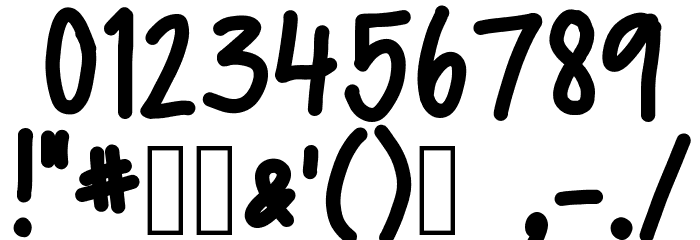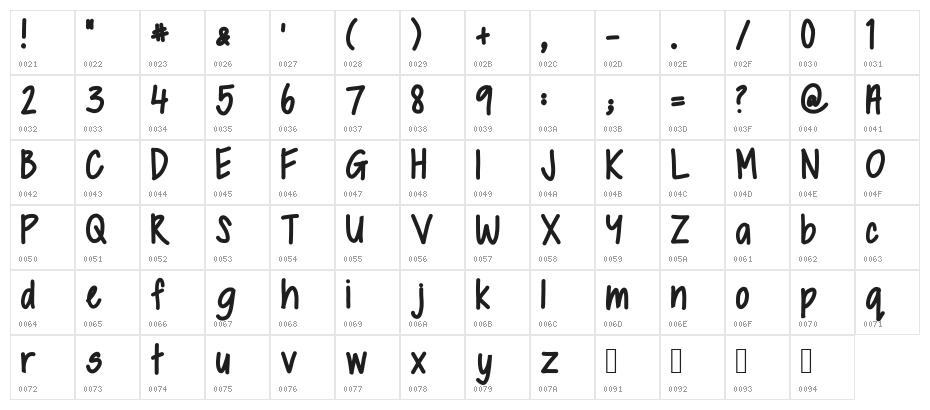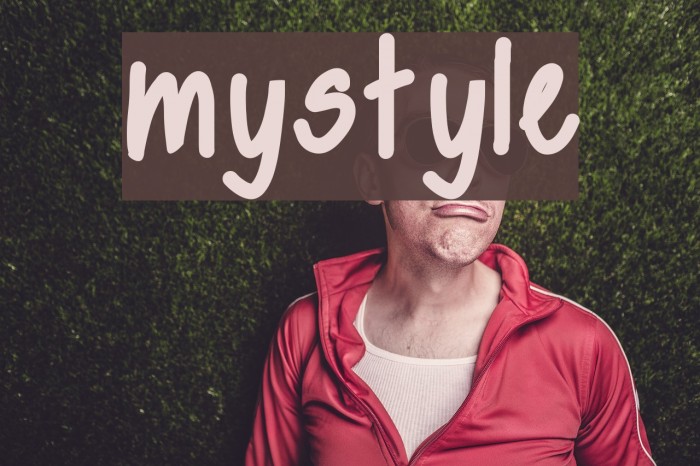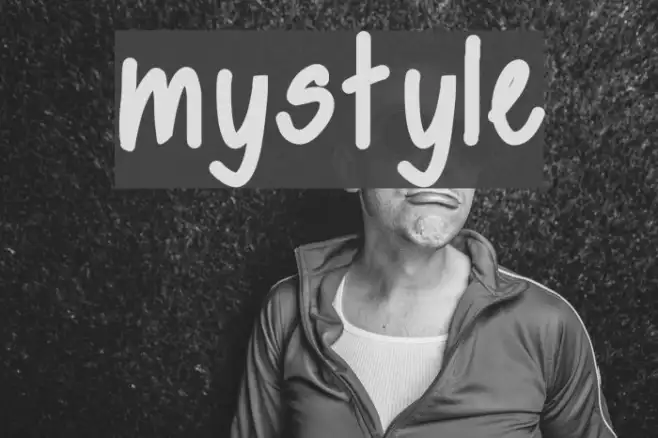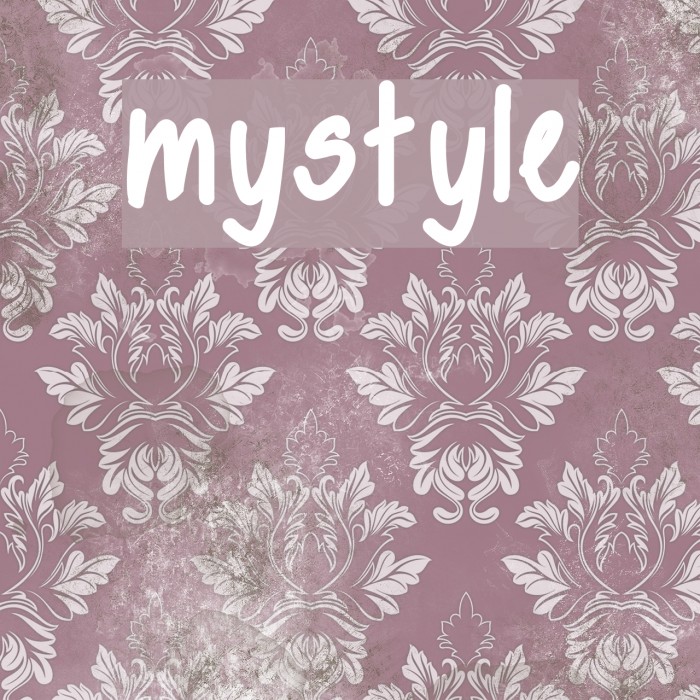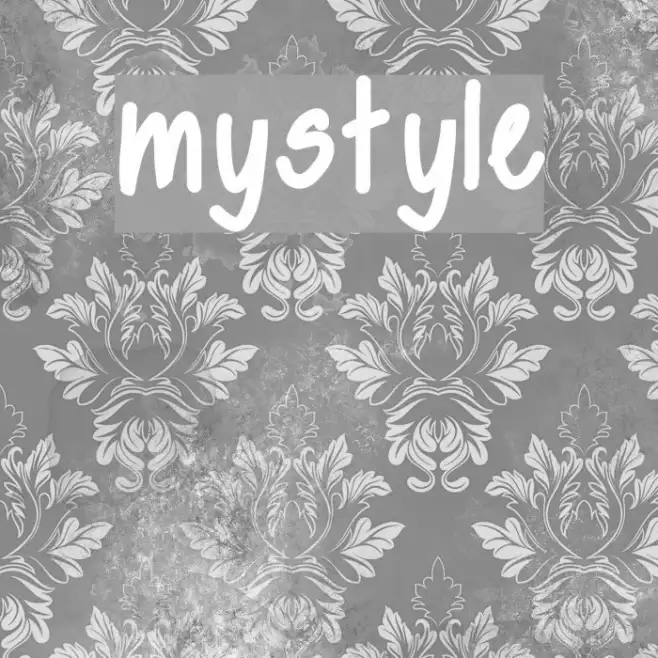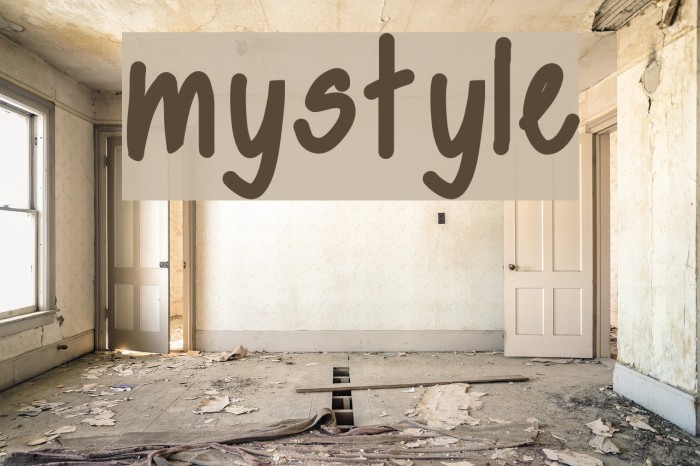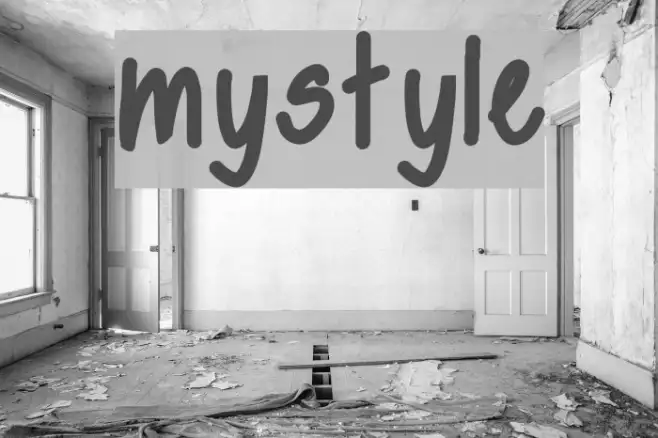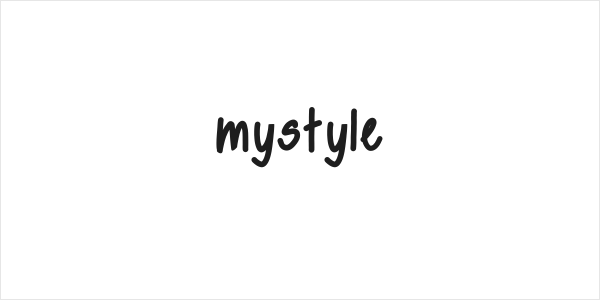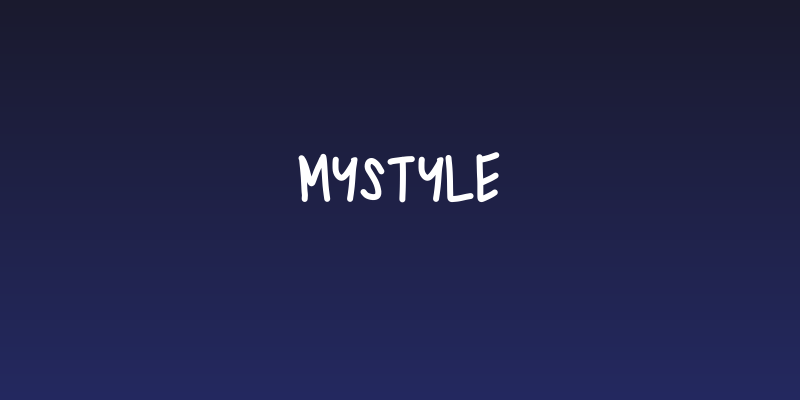
mystyle Font
mystyle Description
This font features a playful and casual handwritten style, characterized by its bold and rounded letterforms. The uppercase and lowercase letters maintain a consistent flow, with slightly exaggerated curves that add a whimsical touch. The numerals and special characters are equally expressive, making them stand out with their unique flair. The overall appearance is friendly and approachable, suitable for projects that require a personal and informal tone. The strokes are consistent in thickness, providing a balanced and cohesive look across all characters.
| Proposed Projects | Ideal for children's books, greeting cards, playful branding, and social media graphics. |